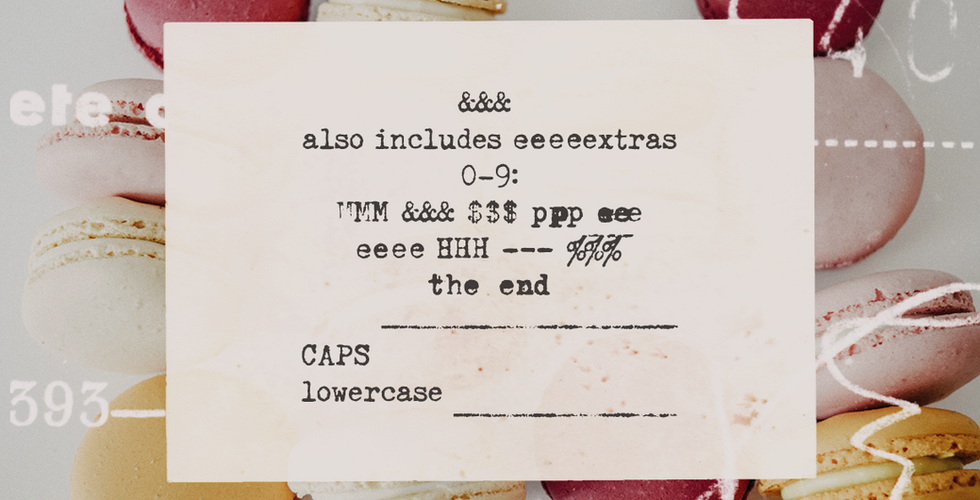
New font! Fletcher Typewriter
So, what happens when my obsession with typewriter fonts meets my love of Murder, She Wrote? The answer, of course, is my new Fletcher Typewriter font!
Fletcher Typewriter font and extras is a mini vintage design kit that includes an authentic vintage typewriter font, aged paper scans, stamps and writing from old postcards and stains and splatters. Sourced from real vintage postcards and photos, as well as an adorable pale green vintage typewriter from the 1970s, these design resources will surely add a retro look to your designs.
• Fletcher Typewriter
Use this fun typewriter font in long or short texts, in digital collages, branding and packaging, social media posts, logotypes, etc.
• 1 font family with 3 weights (regular, bold, black - each weight drawn individually), 2 styles (regular and jumpy) and extras
• 15 stamps (brushes, transparent PNGs and in the extras font)
• 6 stains and splatters (brushes, transparent PNGs and in the extras font)
• Fletcher Typewriter